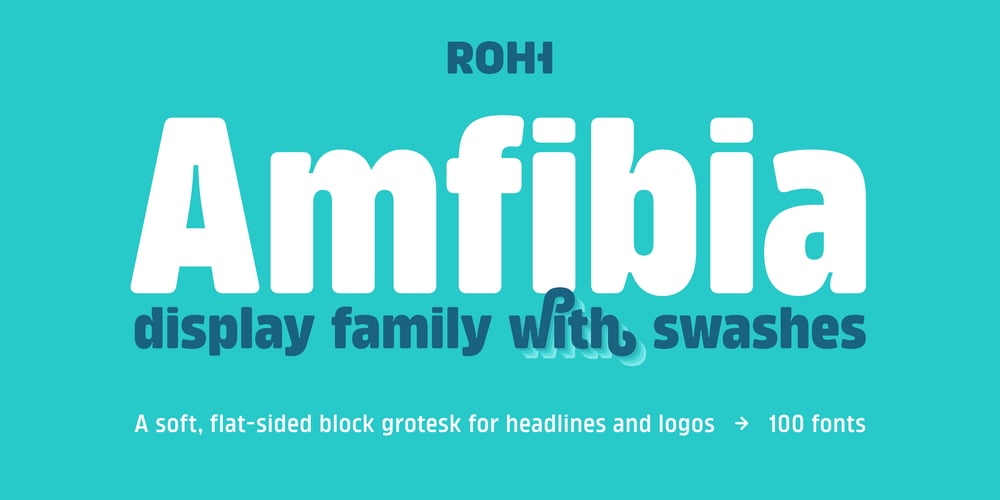
Amfibia Font Family was designed by Roch Modrzejewski and published by ROHH. Amfibia contains 100 styles and family package options. Massive, blocky, and heart-melting! Amfibia is a minimalist, modernist sans that refused to be cold and distant. The squarish nature cannot hide its warm and gentle personality that just makes you feel good. Perfect for eye-catching posters, sleek logos, and modern web layouts, Amfibia balances boldness with approachability. While the display weights are busy stealing the spotlight, Amfibia quietly boasts a range of grotesk styles that make sure your paragraphs look as good as the headlines! The family offers five widths, ten weights and italics—giving a total of 100 fonts to accommodate any creative endeavor.Stuffed with swashes and ligatures, this typeface unleashes a flood of creative potential for product packaging, logo design, and advertising—Amfibia is ready to transform your projects into long lasting impressions!Amfibia has a sibling—Karibu, which is a sharper and simpler, yet still friendly type. Key Features• 100 styles (10 weights + italics)• 5 versatile widths• friendly soft shapes & cool ink traps• overload of swashes & ligatures• over 920 glyphs• Extended Latin language support